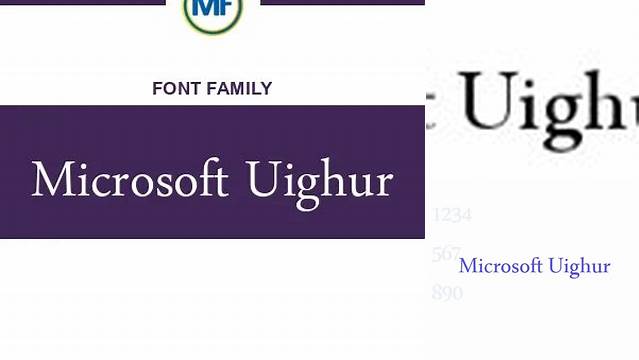
Hey guys! Ever needed a specific font for a project and stumbled upon the Microsoft Uighur font? It's a unique typeface, especially useful for those working with Uighur script. Finding the right font can be a game-changer for your project's aesthetics and readability. So, let's dive into everything you need to know about the Microsoft Uighur font family and how to download it for free. We'll cover its history, uses, availability, and even some troubleshooting tips. Ready to get started?
Microsoft Uighur Font: An Overview
The Microsoft Uighur font is a specialized typeface designed to support the Uighur script, a writing system used by the Uighur people, primarily in the Xinjiang region of China. This font is part of Microsoft's efforts to provide comprehensive language support in its operating systems and applications. The significance of fonts like Microsoft Uighur lies in preserving and promoting linguistic diversity in the digital world. Without proper font support, displaying and creating content in certain languages becomes incredibly challenging. This font ensures that Uighur text is rendered correctly, maintaining its legibility and aesthetic appeal.
The development of the Microsoft Uighur font involved a meticulous process of linguistic and typographic design. Experts in both Uighur script and font design collaborated to create a typeface that accurately represents the script's unique characteristics. This includes the cursive nature of the script, the specific forms of its letters, and the way letters connect within words. The font's design also considers readability across various screen sizes and resolutions, making it suitable for a wide range of applications, from word processing to web design. Its inclusion in Microsoft products reflects a commitment to supporting global languages and cultures. By making this font readily available, Microsoft has facilitated the creation and consumption of Uighur-language content on digital platforms. This has had a significant impact on the Uighur-speaking community, enabling them to participate more fully in the digital world. Whether you're a student, a professional, or simply someone interested in typography, understanding the Microsoft Uighur font is crucial for working with Uighur text effectively. So, let's explore the specifics of where you can download it for free and how to use it in your projects.
History of the Microsoft Uighur Font
The history of the Microsoft Uighur font is closely tied to the broader efforts of Microsoft to incorporate diverse languages and writing systems into its software. The development of this font was a response to the growing need for digital support for the Uighur language, spoken by millions of people primarily in the Xinjiang region of China. The Uighur script, a cursive alphabet derived from the Arabic script, presents unique challenges for digital typography. Unlike Latin-based scripts, Uighur letters connect in various ways, and the font needs to accurately represent these ligatures and contextual forms. Microsoft recognized the importance of providing proper support for the Uighur language as part of its mission to make technology accessible to a global audience.
The creation of the Microsoft Uighur font involved a team of typographers and linguists who worked together to ensure the font's accuracy and aesthetic appeal. The process included studying traditional Uighur calligraphy and adapting it for digital use. The font was designed to be legible across different screen sizes and resolutions, making it suitable for a variety of applications, from word processing to web design. Its inclusion in Windows operating systems and Microsoft Office suites marked a significant step in the digital preservation of the Uighur language. By making the font widely available, Microsoft helped facilitate the creation and sharing of Uighur-language content online. This has had a profound impact on the Uighur-speaking community, allowing them to communicate, educate, and express themselves in their native language in the digital sphere. The Microsoft Uighur font has not only served as a tool for practical communication but also as a symbol of cultural and linguistic identity in the digital age. It ensures that the Uighur language remains vibrant and accessible in an increasingly interconnected world. So, as we delve deeper into how to download and use this font, remember the rich history and the significant impact it has had on the Uighur community.
Key Features of the Microsoft Uighur Font
The Microsoft Uighur font boasts several key features that make it an essential tool for anyone working with the Uighur script. Understanding these features will help you appreciate the font's design and its suitability for various applications. One of the most important features is its comprehensive support for the Uighur script. This means that the font includes all the necessary characters, ligatures, and contextual forms required to render Uighur text accurately. Unlike some generic Arabic fonts, the Microsoft Uighur font is specifically designed to handle the unique nuances of the Uighur writing system. This ensures that the text is displayed correctly, preserving its intended meaning and aesthetic qualities.
Another significant feature is the font's legibility across different screen sizes and resolutions. The designers of the Microsoft Uighur font paid careful attention to ensuring that the characters remain clear and readable, whether they are viewed on a small mobile screen or a large desktop monitor. This is crucial for maintaining a positive user experience, especially when reading long passages of text. The font also includes various weights and styles, such as regular, bold, and italic, providing flexibility for different design needs. This allows you to use the font in a variety of contexts, from headings and titles to body text and captions. The availability of different styles ensures that you can create visually appealing and well-structured documents. Furthermore, the Microsoft Uighur font is designed to integrate seamlessly with Microsoft Office applications and other software that supports Unicode. This makes it easy to use the font in your everyday work, whether you are writing a document, creating a presentation, or designing a website. The font's compatibility with Unicode also means that it can be used across different platforms and operating systems, ensuring consistency in how Uighur text is displayed. In summary, the key features of the Microsoft Uighur font make it a versatile and reliable choice for anyone who needs to work with the Uighur script. From its comprehensive character support to its legibility and compatibility, this font is designed to meet the needs of a wide range of users. So, let's move on to discussing where you can download this essential font for free.